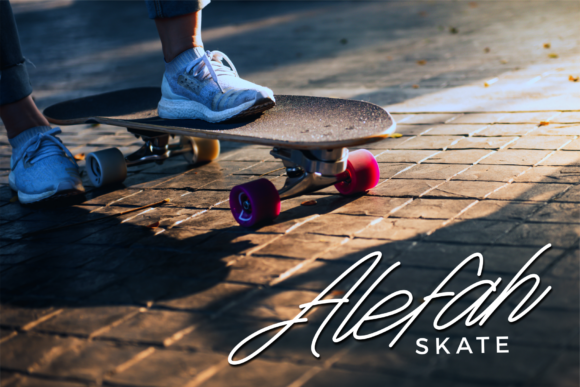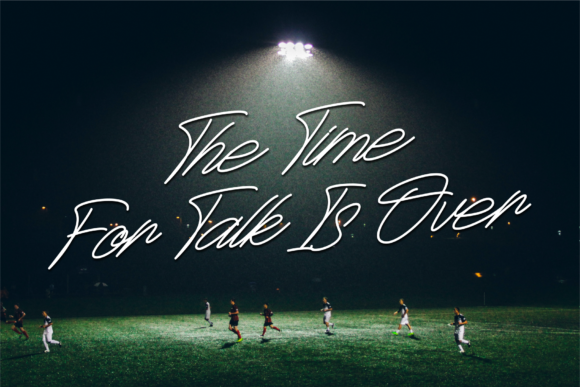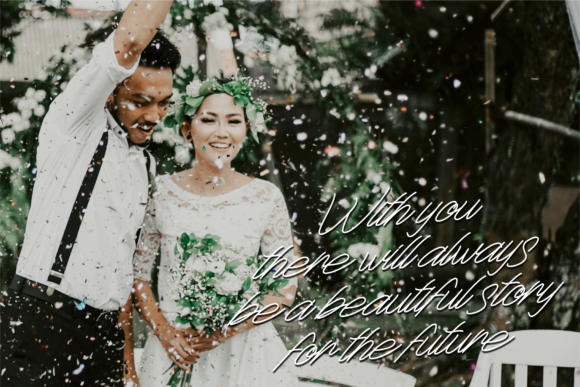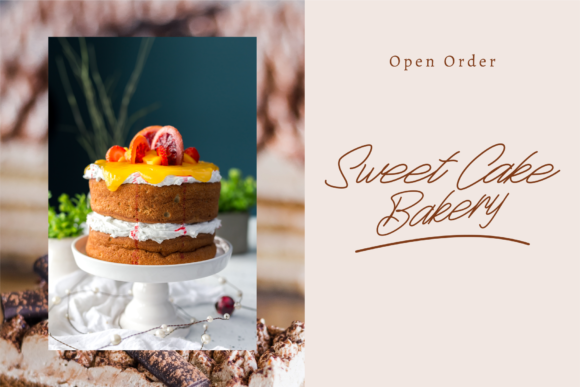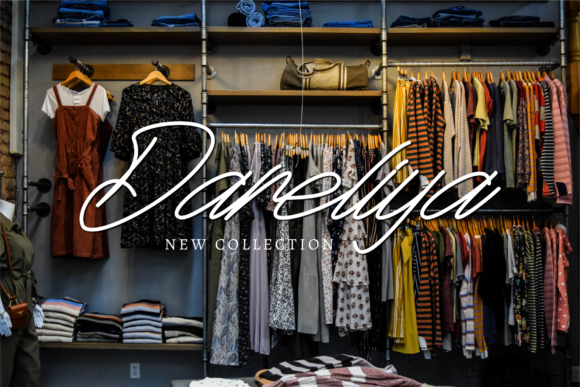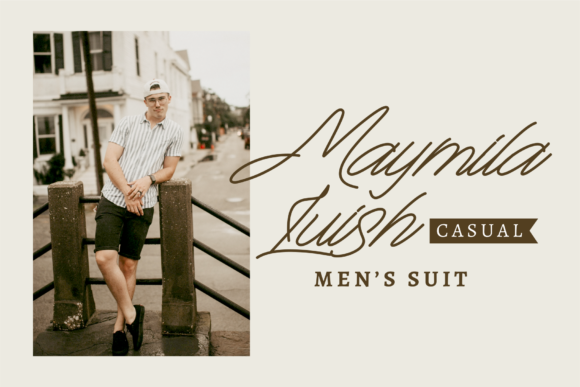
Introduction to Liforiesta Font
Liforiesta is an asymmetrical and timeless handwritten font.
Key Features of Liforiesta Font
Why Choose Liforiesta Font?